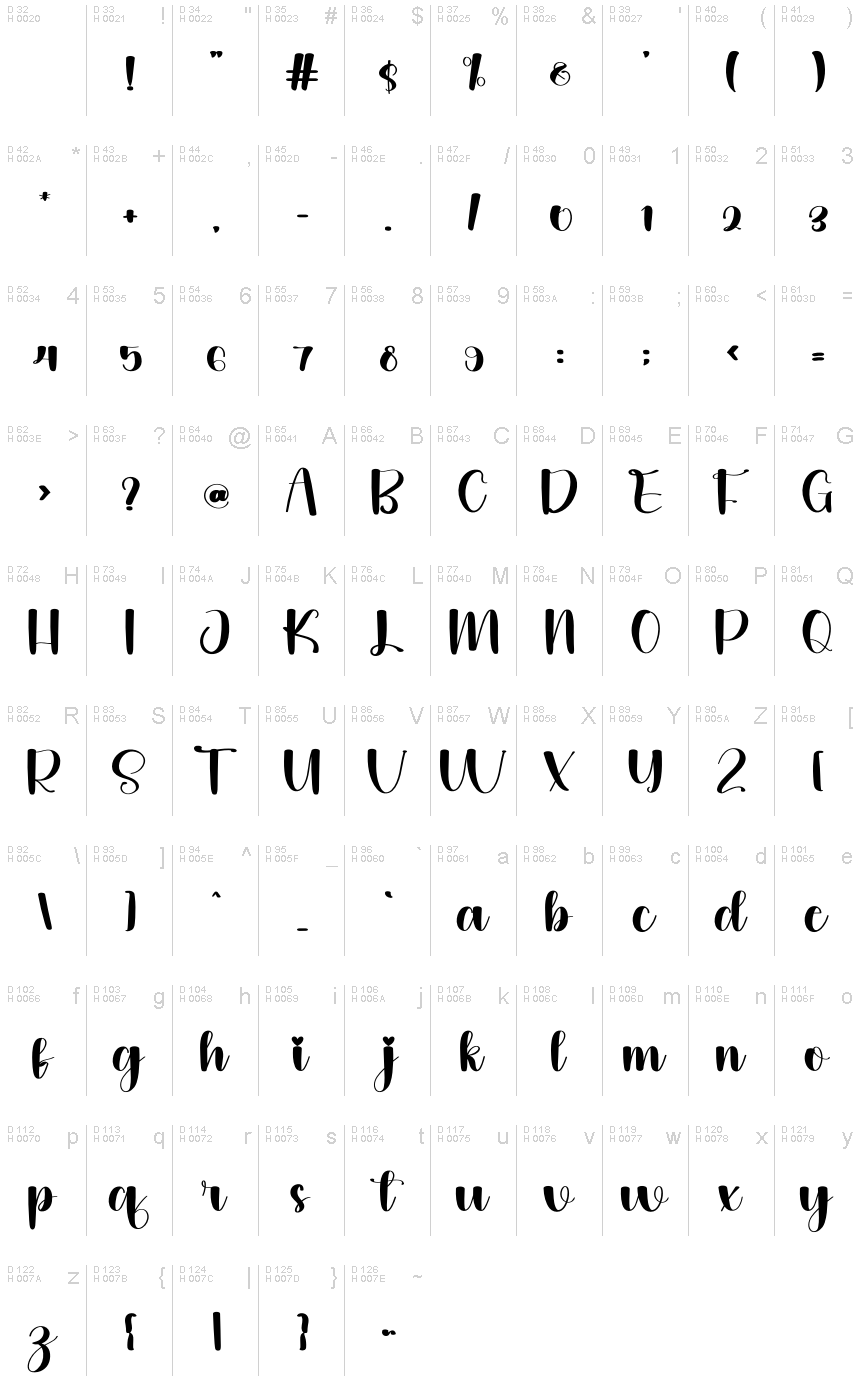
Stunt
Stunt, a creation by FreshtypeINK, brings the charm of handwritten artistry to the digital realm. With its fluid curves and natural variations in stroke, Stunt exudes an organic warmth reminiscent of elegant cursive penmanship. The font's playful yet sophisticated swirls suggest a bespoke touch that adds personality and flair to any project.
Ideal for invitations, branding, and editorial designs, Stunt’s inviting character makes it a perfect choice for applications seeking to convey intimacy and individuality. Its aesthetic appeal lies in the subtle dance between casual spontaneity and meticulous craftsmanship—a balance that allows it to shine across both creative endeavors and personal correspondence.